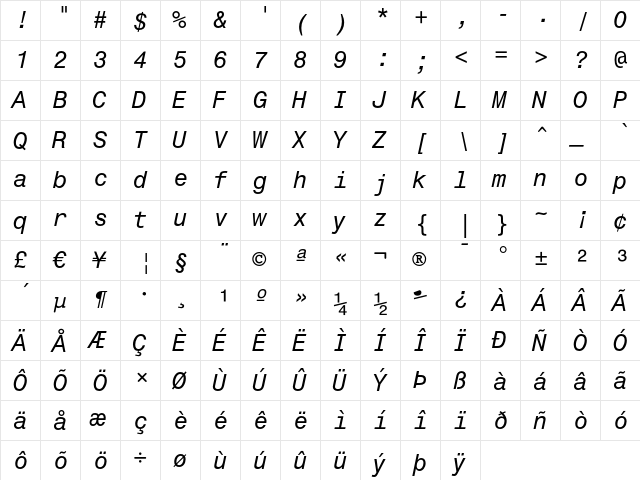
Monospace 821 Italic
Design Context for Monospace 821 Typeface
Monospace 821 brings the precise, column-aligned rhythm of monospaced typography to designs that value technical clarity and systematic order. The slanted form adds forward momentum and visual energy.
Pro Tip: Use Monospace 821 with slightly increased line-height for extended reading — fixed-width spacing can feel dense in longer passages without extra breathing room.